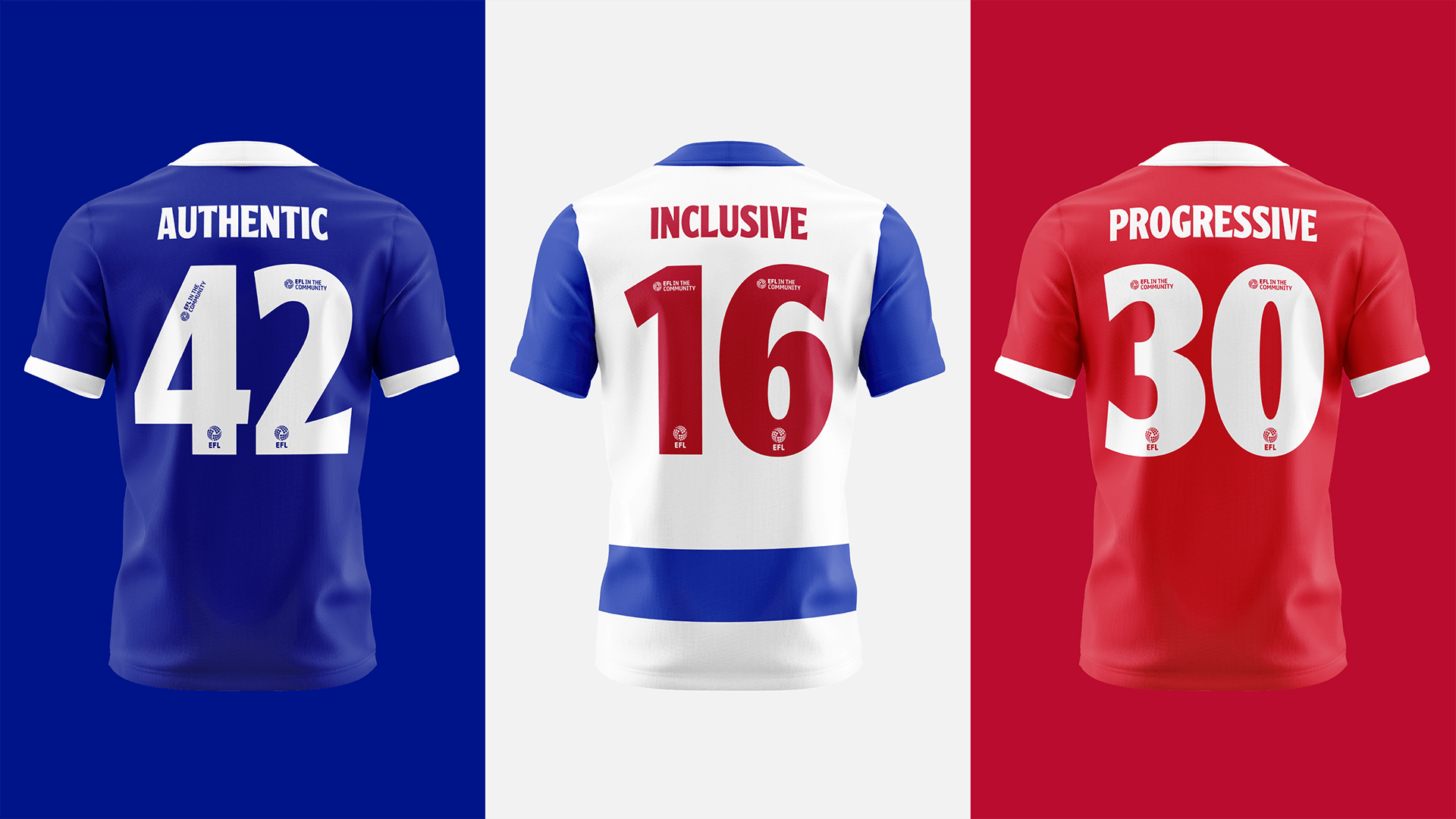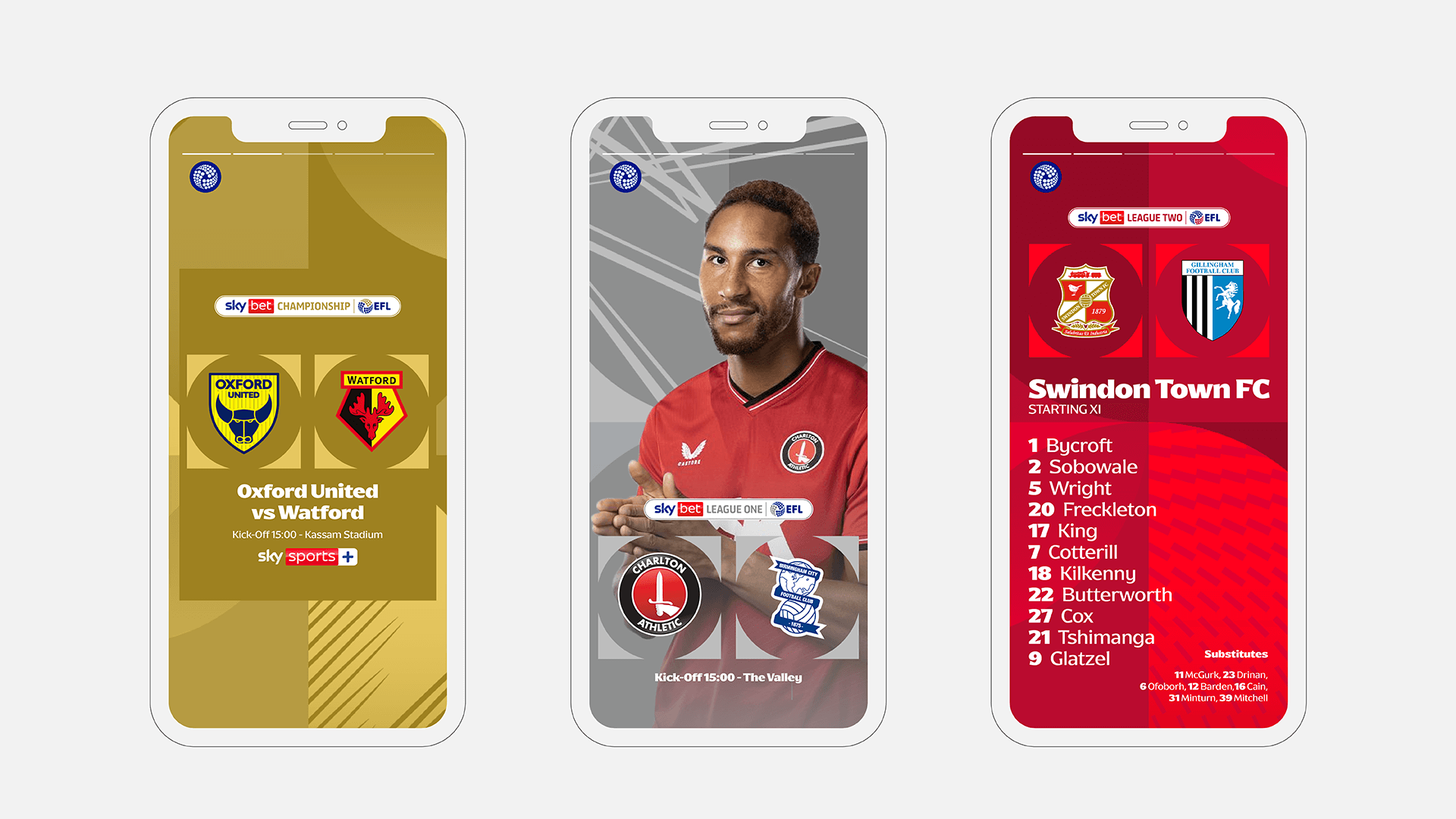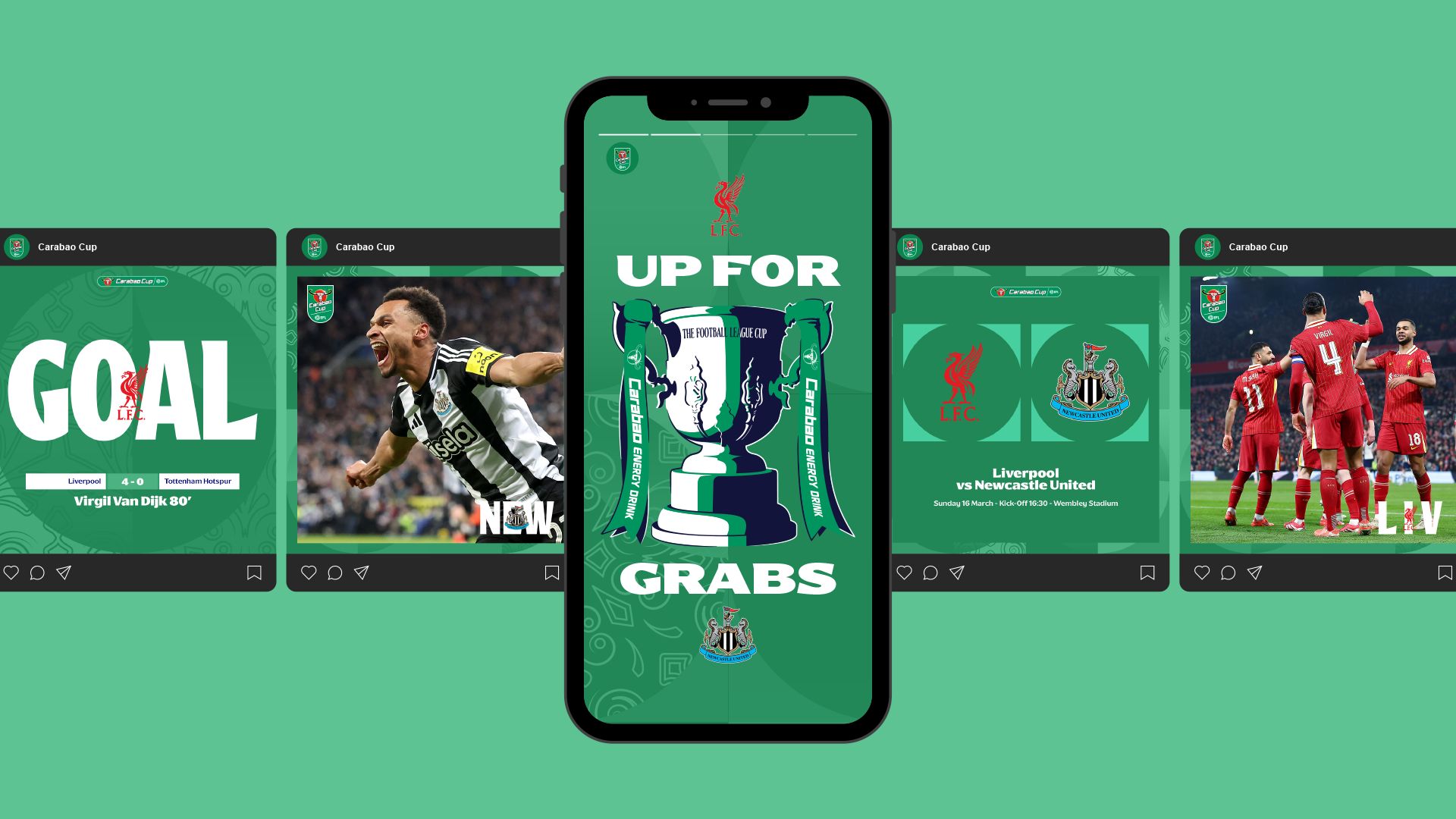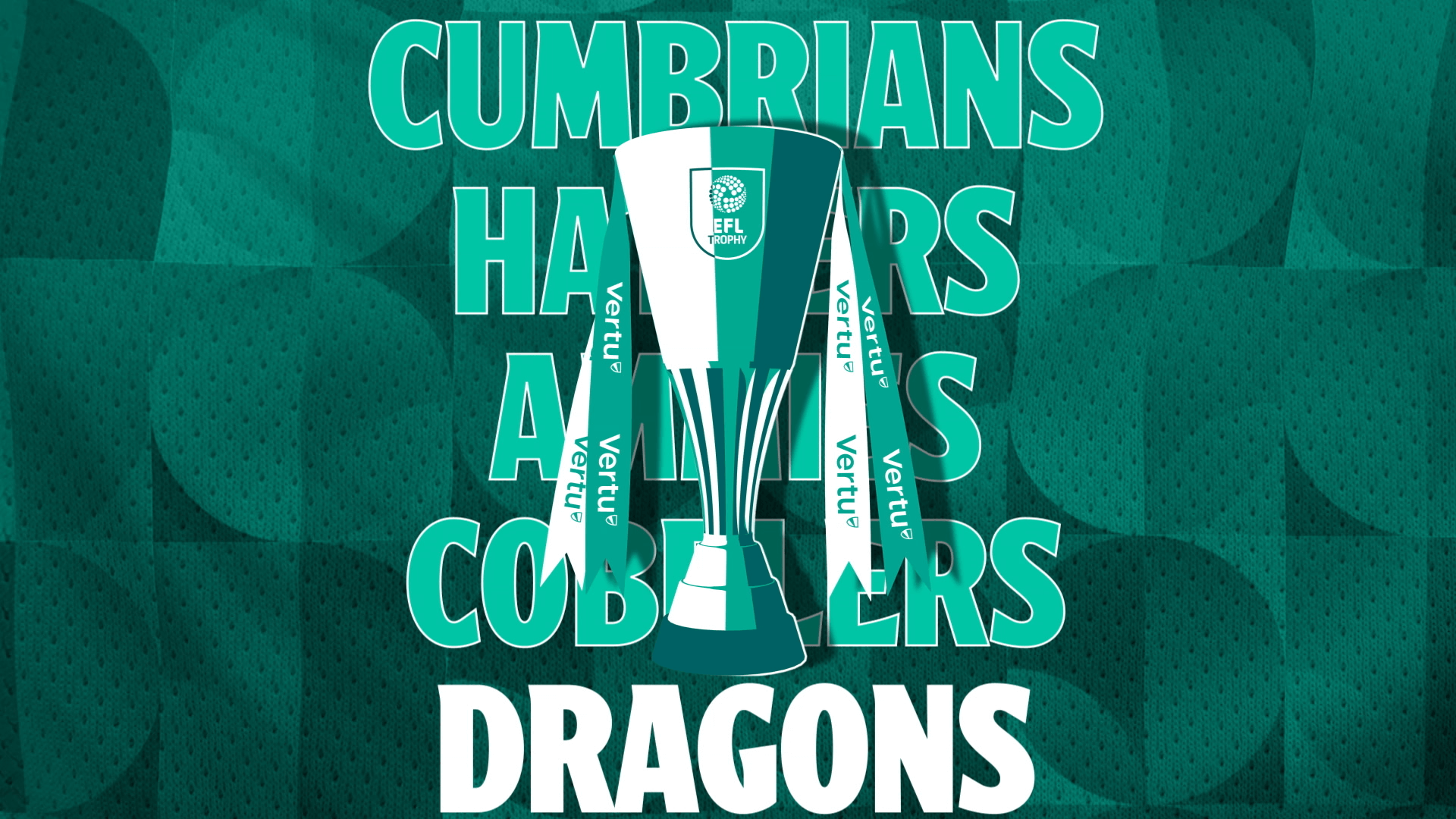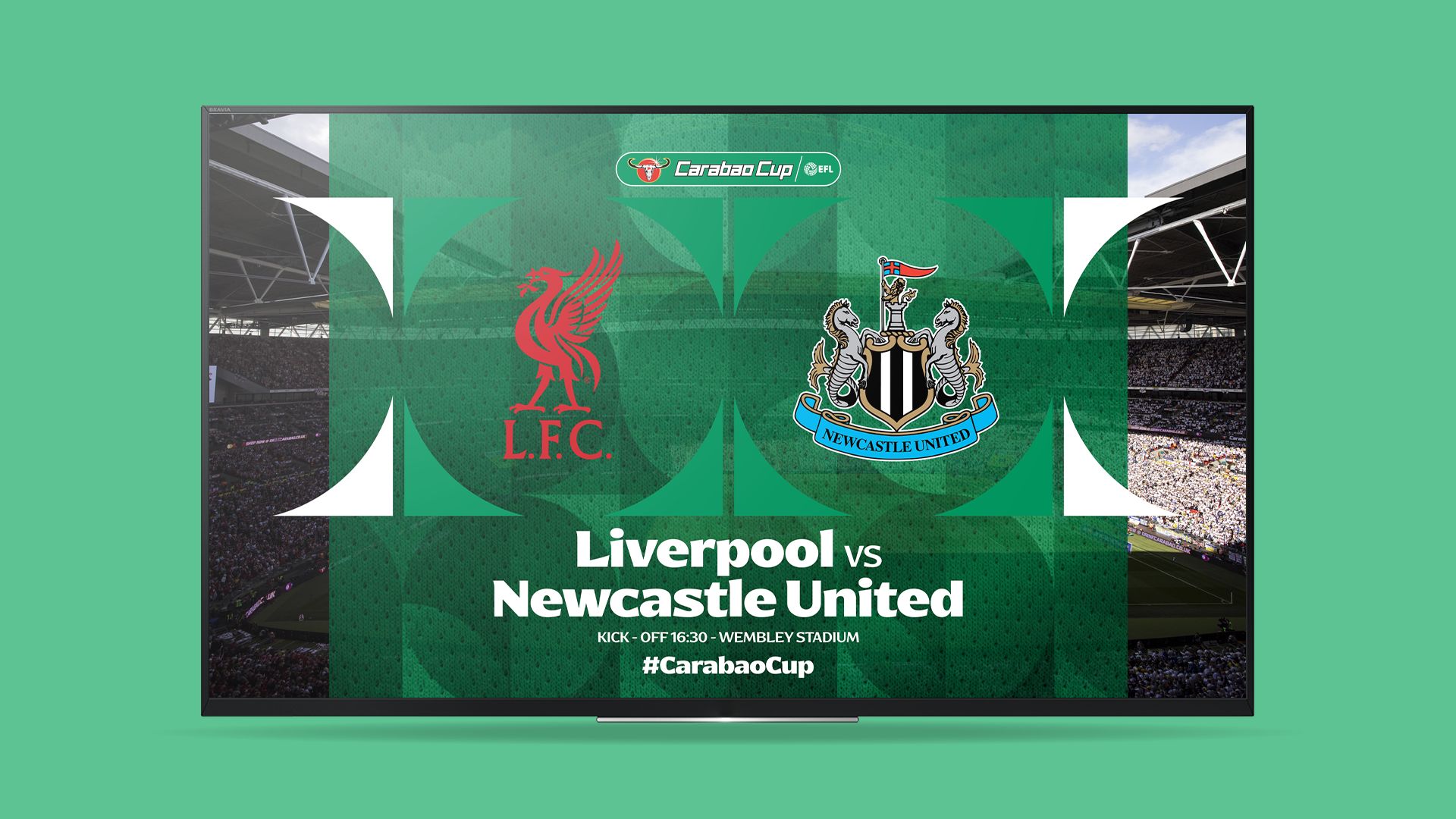
EFL 1888. English Football League custom typeface
In 2024 we collaborated with TwelfthMan designing a custom typeface for one of the most competitive and oldest football competition in the world.
Named after its founding date (1888), the EFL 1888 bespoke typeface is a modern and versatile family, created for the English Football League. It delivers a strong creative expression without giving up on clarity and legibility, celebrating the EFL’s 136 years of innovation.
Its contemporary semi-serif style modernises the identity across a wide range of editorial and creative output. The lighter weights from Regular to ExtraBold are pragmatic yet expressive, best suited for body copy and long paragraphs, while the unapologetic Black boasts a range of 5 different widths, ideal for impactful headlines and display purposes.